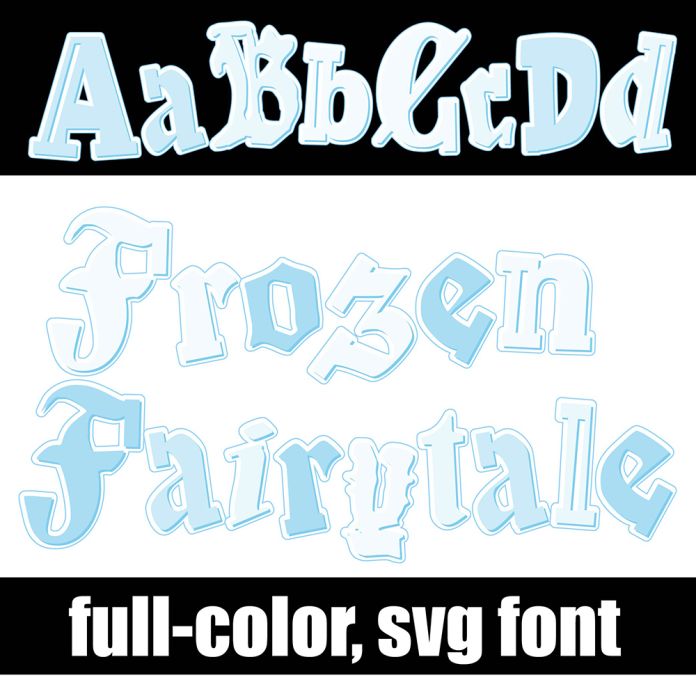
This full-color font features a variety of calligraphy style lettering in a winter color palette. There is an alt case with an additional color of each letter. This font works best for titles, displays, posters and more. Please note color fonts will show as black in non compatible programs. This font type is compatible with Silhouette Studio. D